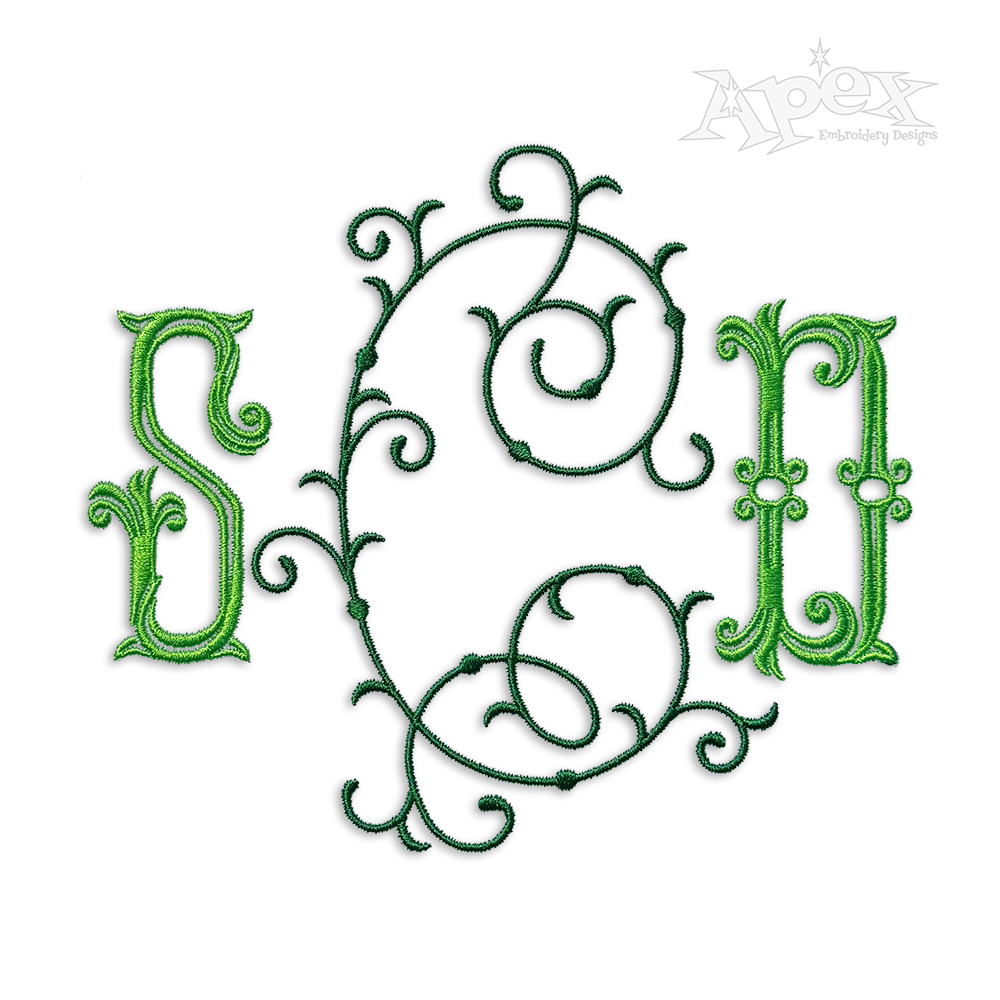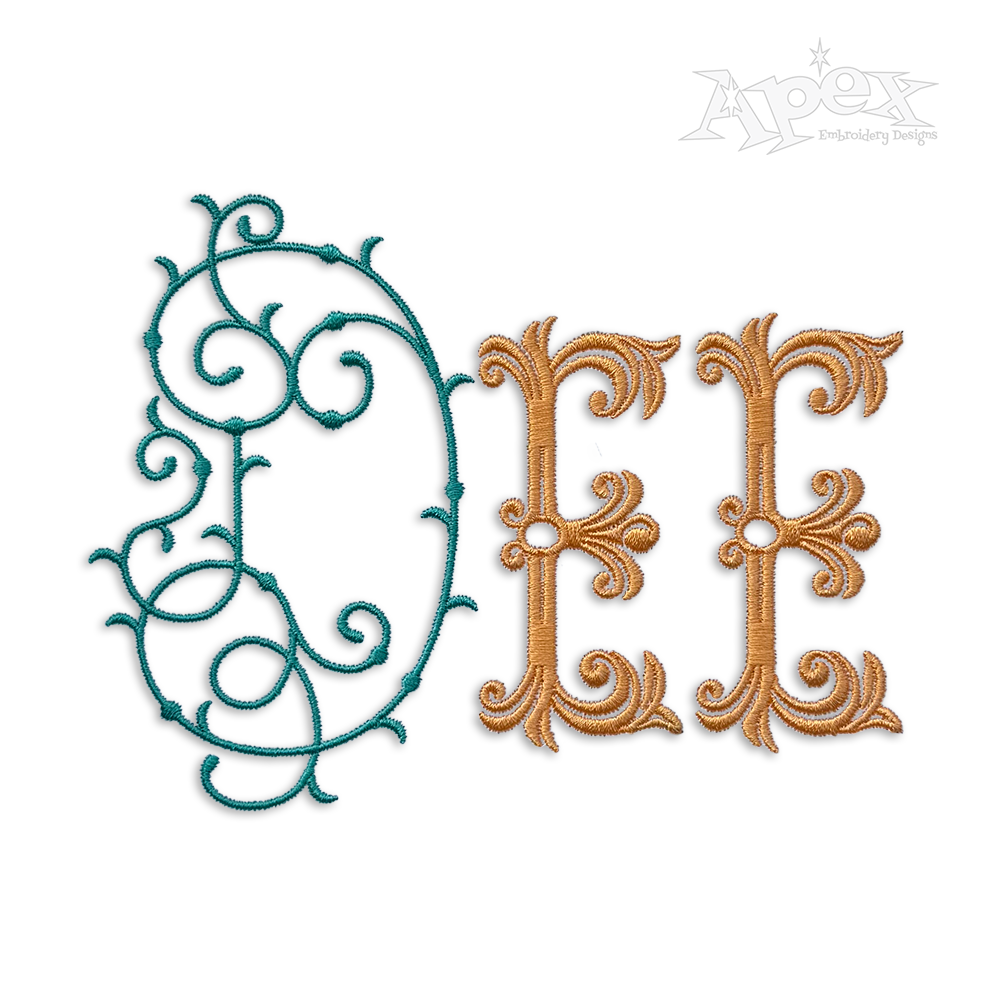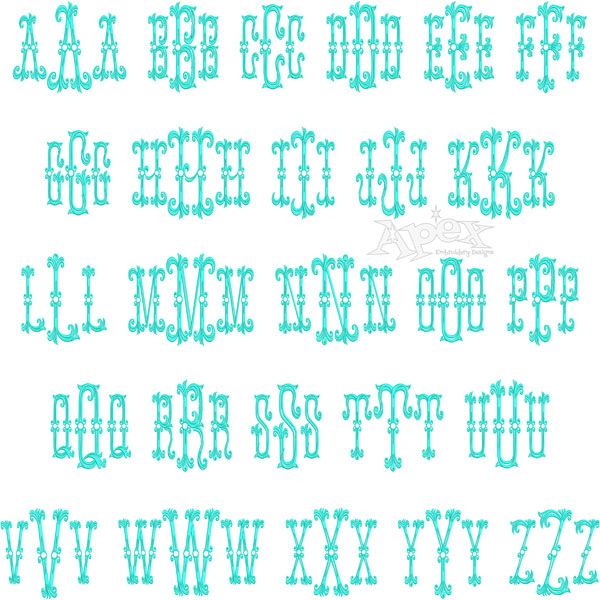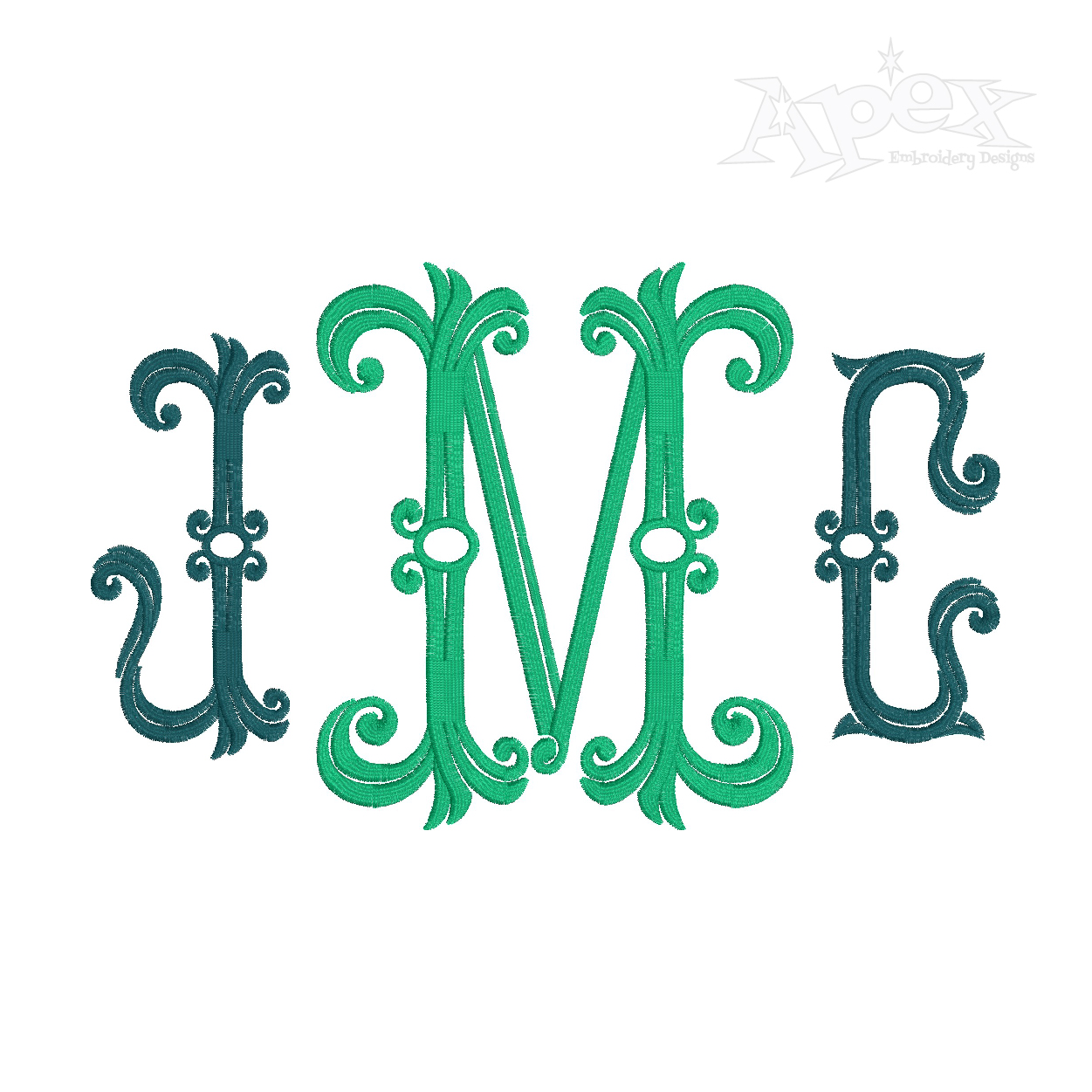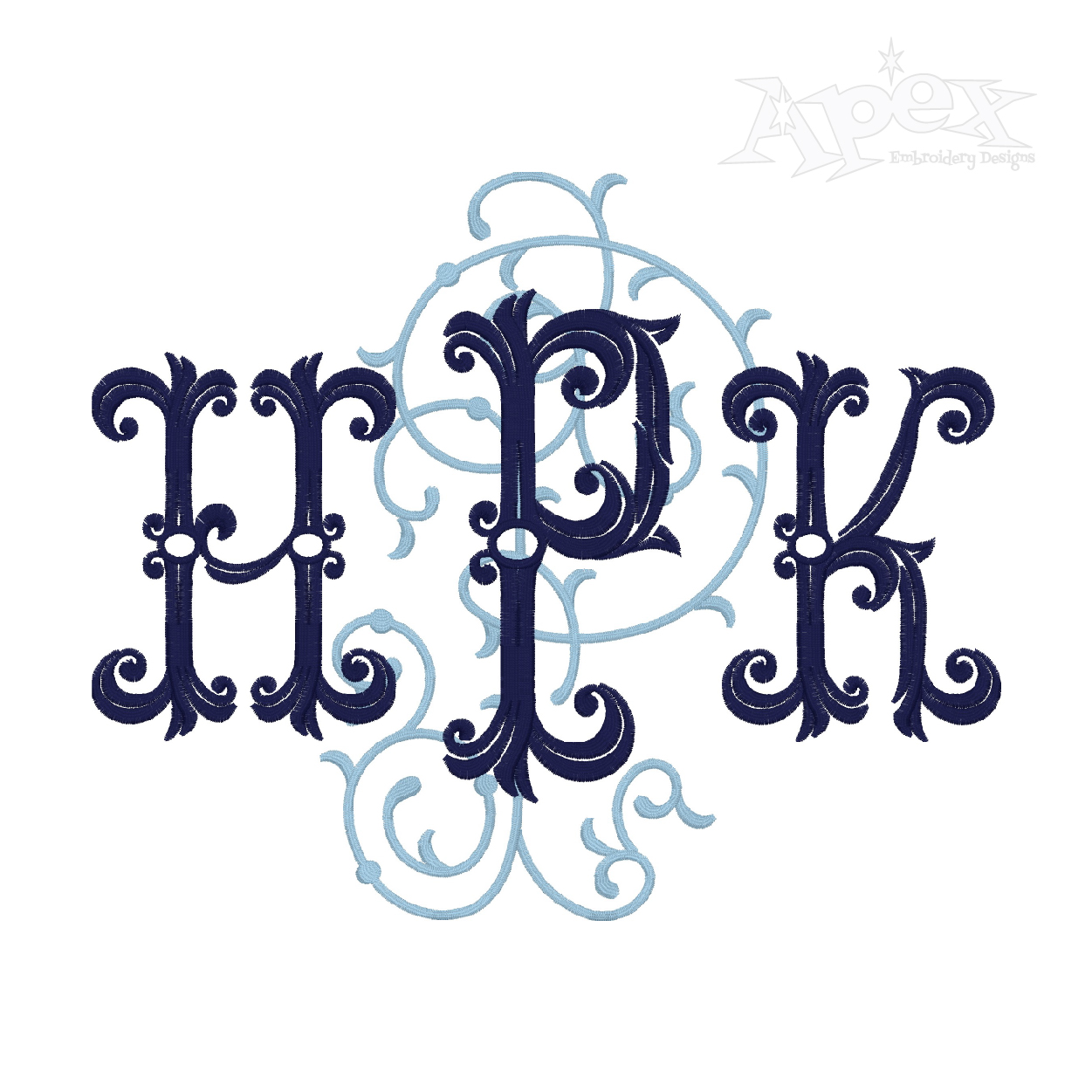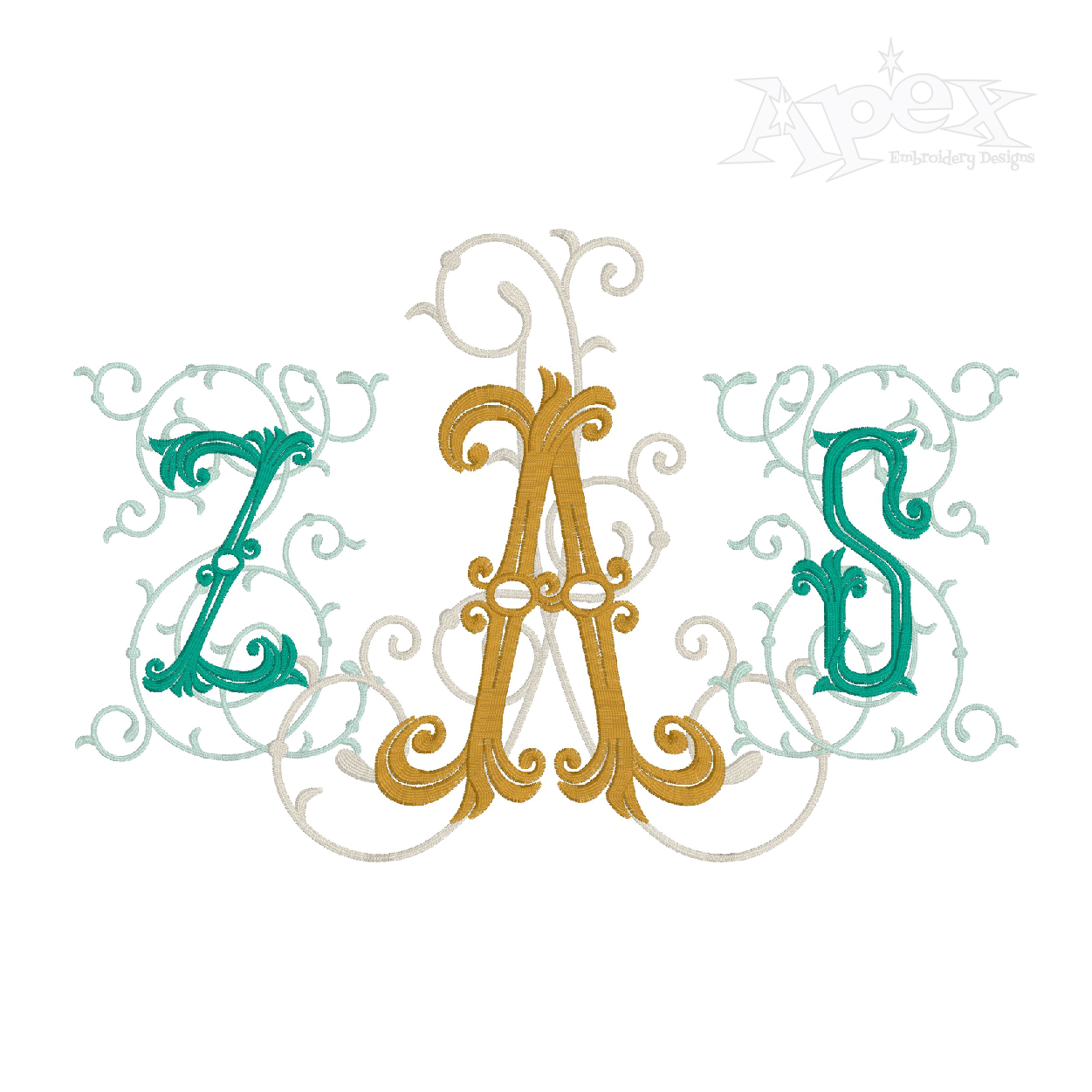
Sweet Briar Monogram Embroidery Font Pack
Conceived in the quiet stillness of our design studio, the Sweet Briar Monogram Embroidery Font Pack captures the romance of a secluded French manor overgrown with wild rambling roses. We dreamed of a monogram collection that balanced classical aristocratic structure with the untamed grace of nature—where crisp architectural stems intertwine effortlessly with lavish, botanical flourishes. Stitching Sweet Briar is an invitation to weave an heirloom story into fine textile, transforming ordinary woven fibers into grand bespoke statements reminiscent of vintage bridal trousseaus and sun-drenched European estates.
The Sweet Briar collection arrives as a versatile two-font suite, engineered to offer both restrained classical elegance and dramatic, sprawling ornamentation across a wide range of embroidery hoop sizes:
- Sweet Briar Basic Monogram: Includes 5-inch, 6-inch, and 7-inch heights—tailor-made for balanced three-letter centerpieces, crisp tailored accents, and refined formal personalizations.
- Sweet Briar Flourish Monogram: Includes 7-inch, 8-inch, and 10-inch heights—designed for breathtaking statement pieces featuring sweeping floral swags, extended botanical vines, and grand regal ascenders.
Sweet Briar Monogram Craft & Letterform Details
Every sweep, vine, and serif in the Sweet Briar collection is an exercise in thoughtful digitizing geometry. Rather than relying on automated satin fills, our artisans hand-mapped every split-satin column to honor the optical physics of embroidery thread. Curved stems twist with feather-soft transitions, allowing rayon and polyester threads to catch ambient light like hand-wound silk cord. The Flourish edition balances soaring, calligraphic ascenders with grounded baseline flourishes, while the Basic font provides timeless, architectural clarity. Specialized multi-layered underlay stabilizes lofty linens without adding stiff cardboard density, ensuring your finished monogram drapes with the soft, tactile luxury of true European handwork.